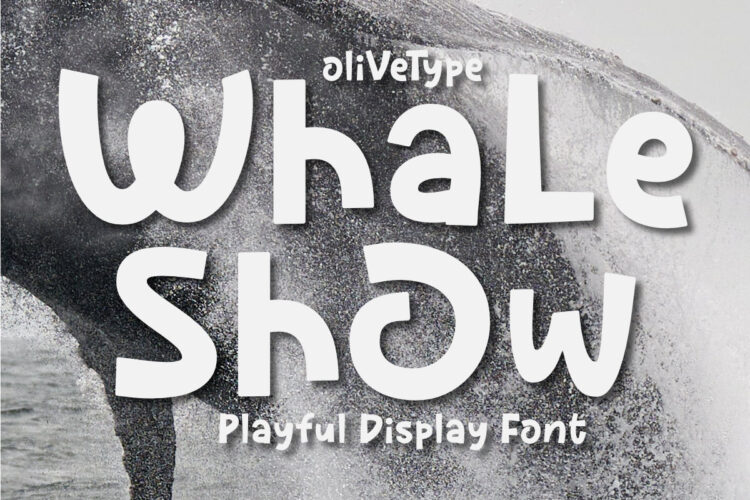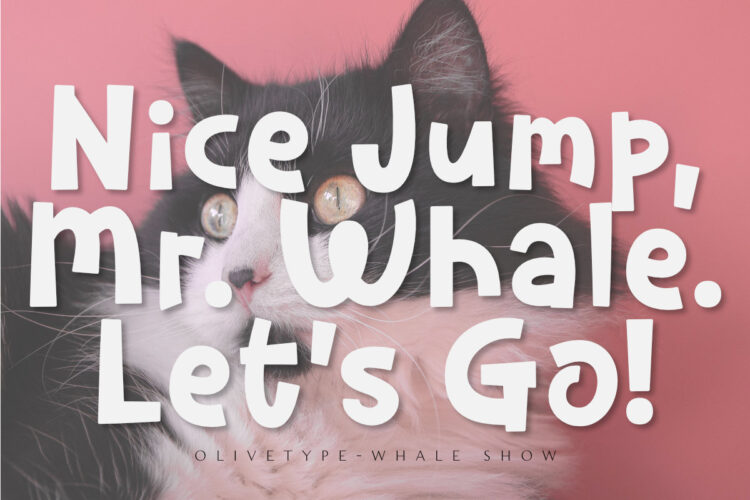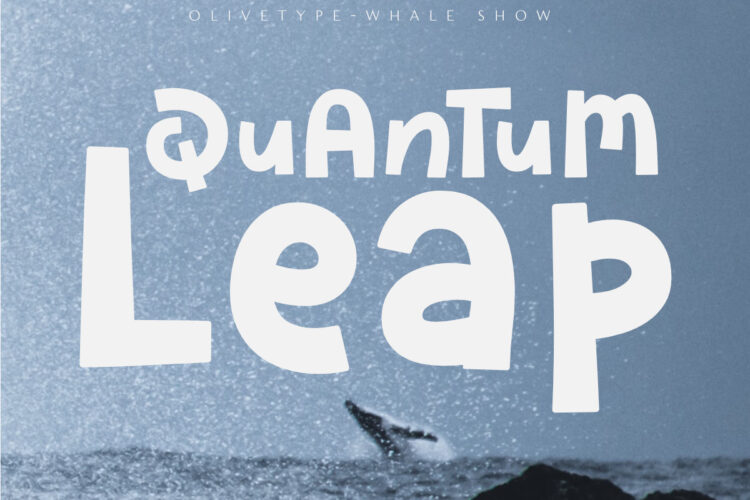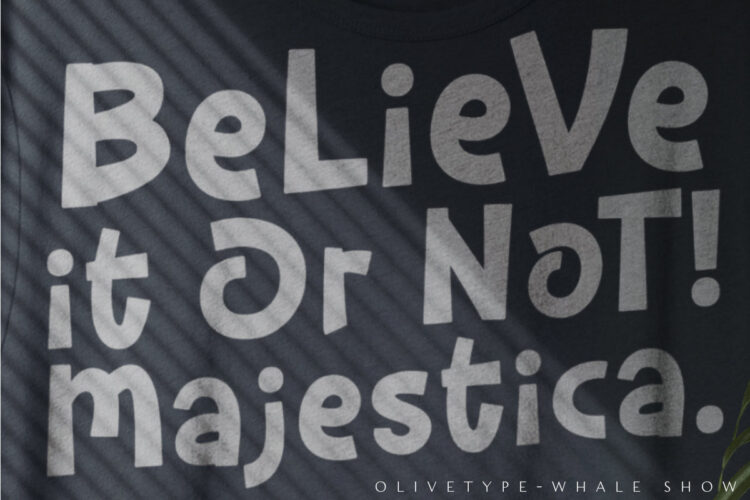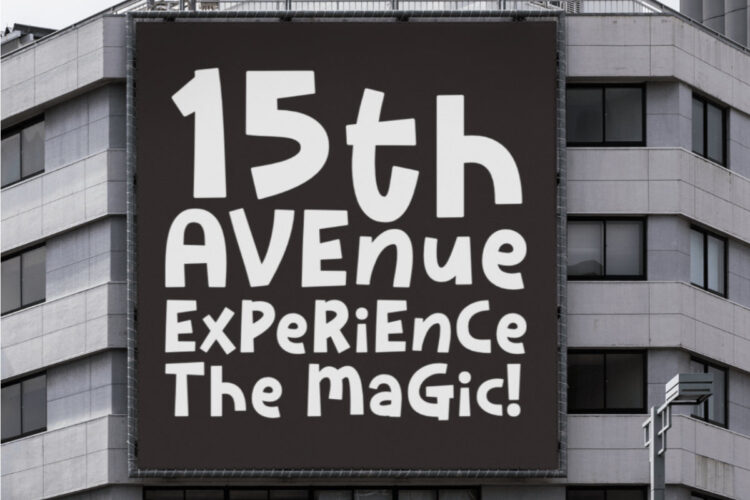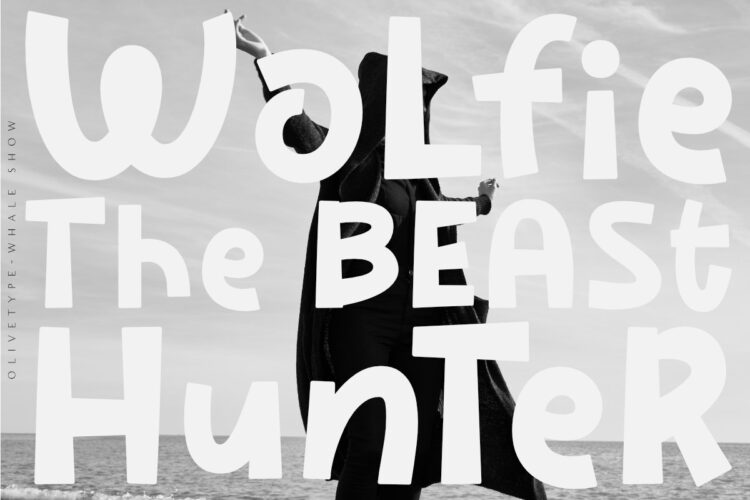
Whale Show is a fun display font with a youthful, whimsical, and bubbly feel, great if you need to create a friendly, playful mood in your design. This font is also quite versatile and easy to work with. You can use it for logos, posters, headlines, etc.
- Basic Latin A-Z & a-z.